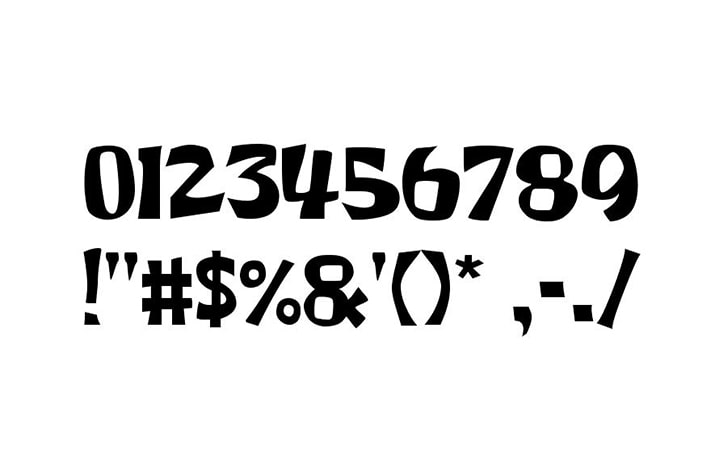
Spongeboy Me Bob Font is a fun and friendly cartoon typeface with a jungle vibe. Includes all letters and numbers, but lowercase letters are in all caps.
Basically, it’s based on the old Spongebob movie website. is an American animated comedy series that first premiered in May 1999.
It also gained immense popularity in its second season. As of 2017, it generated US$13 billion in commercial revenue for Nickelodeon.
This is the reason why it is very popular all over the world and many designers around the world are waiting for its title and movie font to be used in different projects.
| Font Designer: | EyeOfTheLioness |
It is ideally suited for brand logos, banner ads, billboards, headlines, titles, logos, watermarks on photos, comic covers, movie posters, product packaging, book covers, stationery print, game titling, product designs, kids bags, stickers tattoos, as well as other related works.
This font family contained only one weight including Regular. That was developed and shared by a type foundry Eye of The Lioness in April 2016.